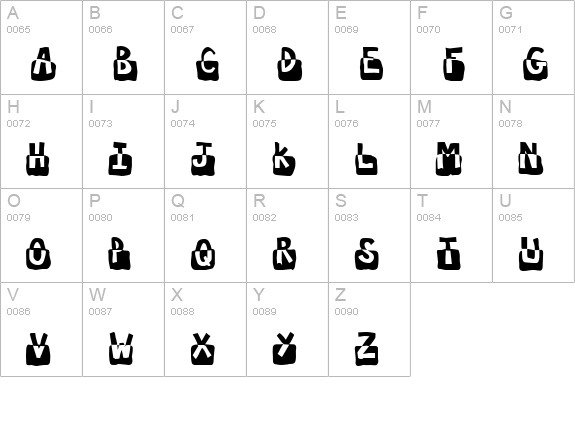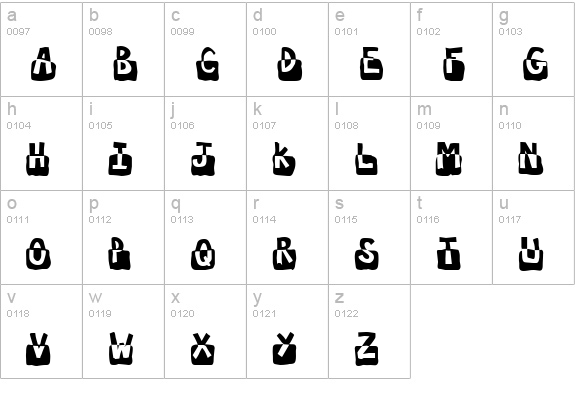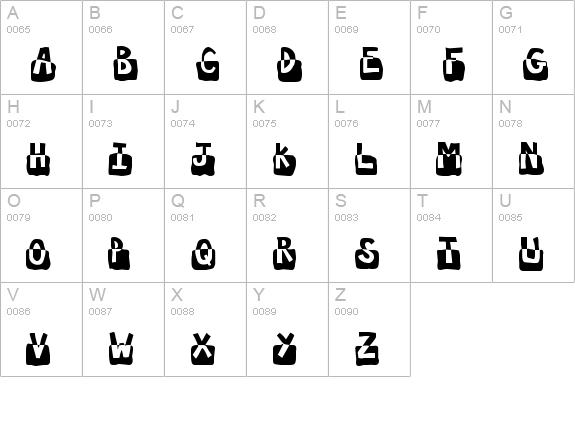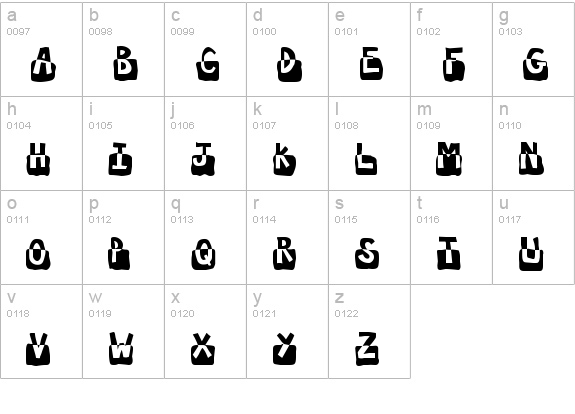
Submerged Font Details
Submerged font is a unique and captivating typeface that exudes a sense of depth and mystery. Its fluid lines and intricate details give it a submerged underwater feel, making it perfect for projects that require a touch of intrigue and elegance. This font is versatile and can be used for a variety of design purposes, from branding to editorial design. The best part? Submerged font is completely free to download at FontsMarket.com, allowing you to add a touch of sophistication to your projects without breaking the bank. Don't miss out on this stunning font that will surely make your designs stand out. Download Submerged font today and dive into a world of creativity and inspiration.